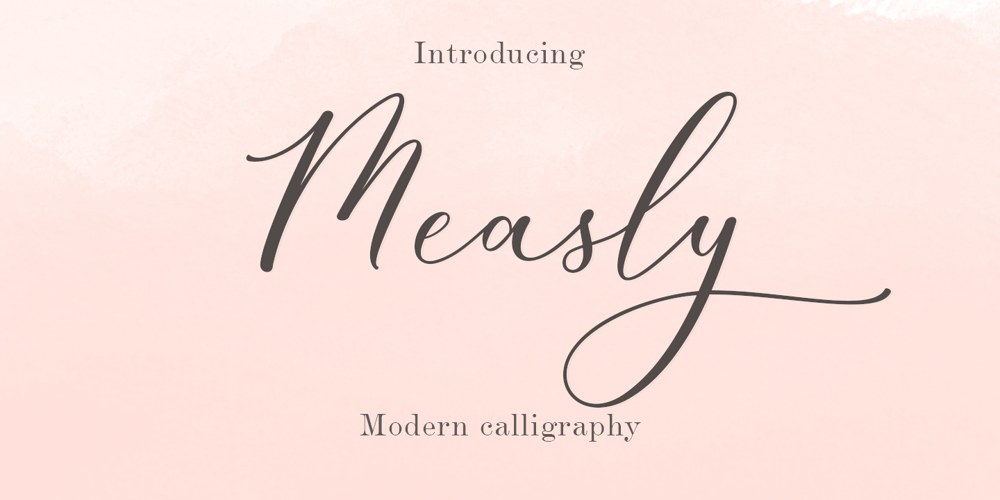
Measly Font Family was designed by Kamaruddin Kamaruddin, Amar Lettering and published by Amarlettering. Measly contains 1 styles and family package options. Measly Script is a delicate and elegant script font with a modern and sophisticated appearance. Its thin letterforms feature fluid strokes and subtle curves, creating a graceful and refined feel. The font is perfect for designs that require a sense of elegance and sophistication, such as wedding invitations, branding, or editorial design.